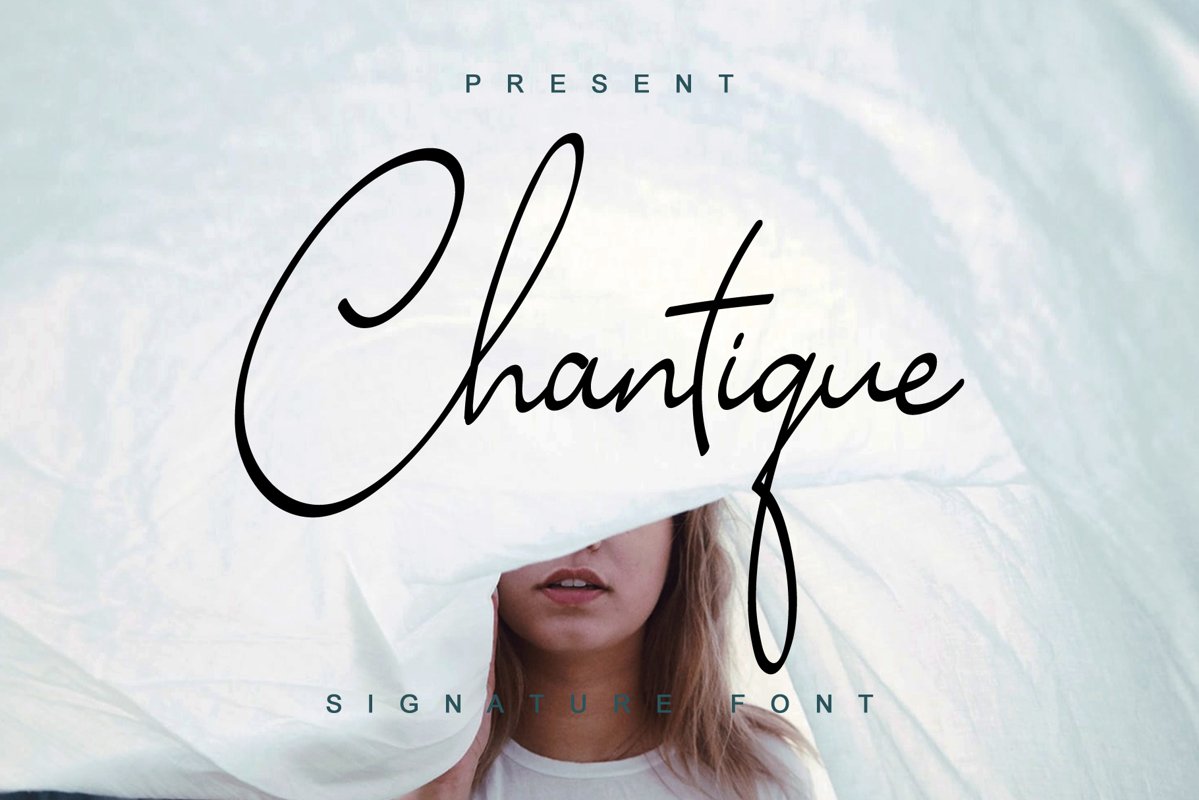
Chantique
Chantique is a stylish modern handscript font. It is perfect for branding, wedding invites and cards, and any purposed which need natural signature. Chantique includes full set of gorgeous uppercase and lowercase letters, numerals, a large range of punctuation and some ligatures. Giving realistic hand signature style.